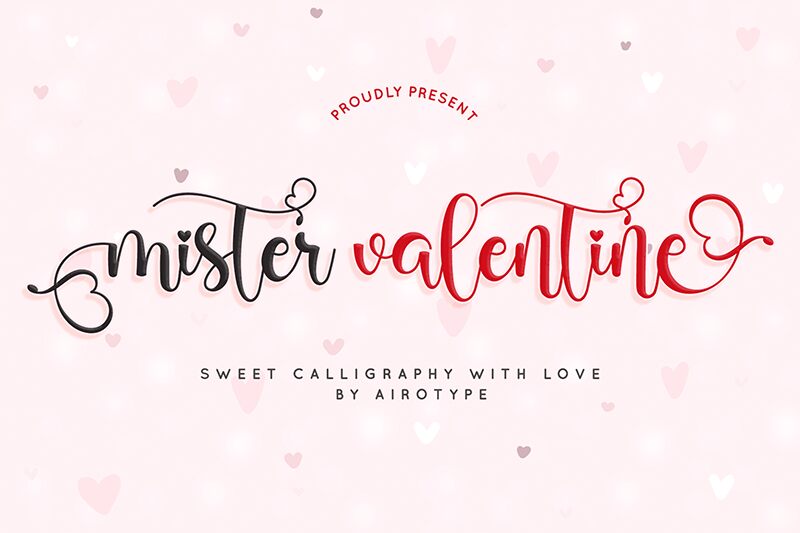
Mister Valentine
Mister Valentine font by Airotype Studio is a free calligraphy font with a romantic and elegant style. It brings together decorative flourishes, whimsical vibes, and a vintage-inspired appearance for a charming overall aesthetic. The stunning typeface focuses on mesmerizing audiences with its undemanding yet striking design.
Wear the font through branding projects, poster designs, magazine covers, packaging design, product labels/tags, stationery designs such as wedding invitations or greeting cards. Use it for wrapping paper prints or anything else that can benefit from the clean and gorgeous look of fabulous letters.